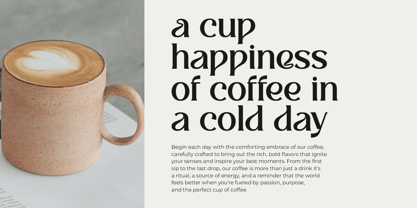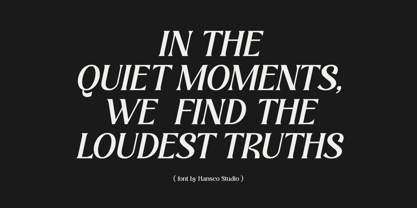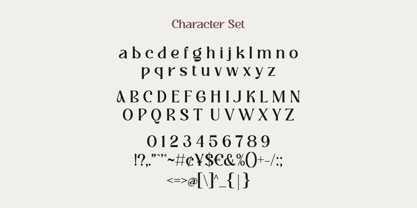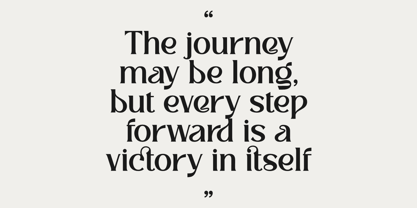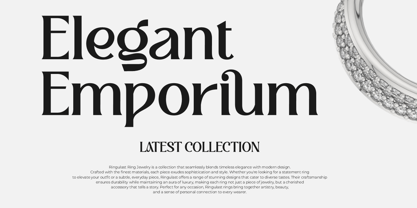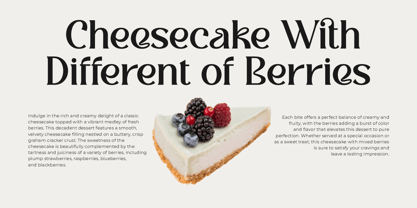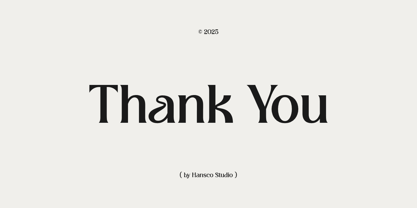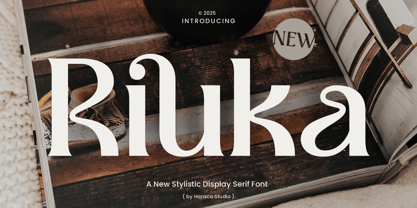
Riuka
by HansCo
The Riuka Font Family was designed by Burhan Afif and published by HansCo. Riuka contains 2 styles and family package options.
Riuka Font is a elegant display serif font with modern look that is perfect for multipurpose projects. This Font inspired by the concept of romantic vibes and made it into a unique yet luxury style. This font is also looks fabulous and will fit well in any design and very recommended for logo, crafts, posters, books, branding, quotes, print templates, packaging, invitations, product labels, advertising, wedding project and more. This typeface comes in uppercase, lowercase, with punctuation, symbols, numerals, ligature and stylistic alternates. This font is PUA encoded which means you can access all of the charming glyphs and swashes with Character Map on Windows or Font Book on Mac.
Features :
• Uppercase & Lowercase
• Number & Punctuation
• Multilingual Supports
• Alternate & Ligature (for some character)